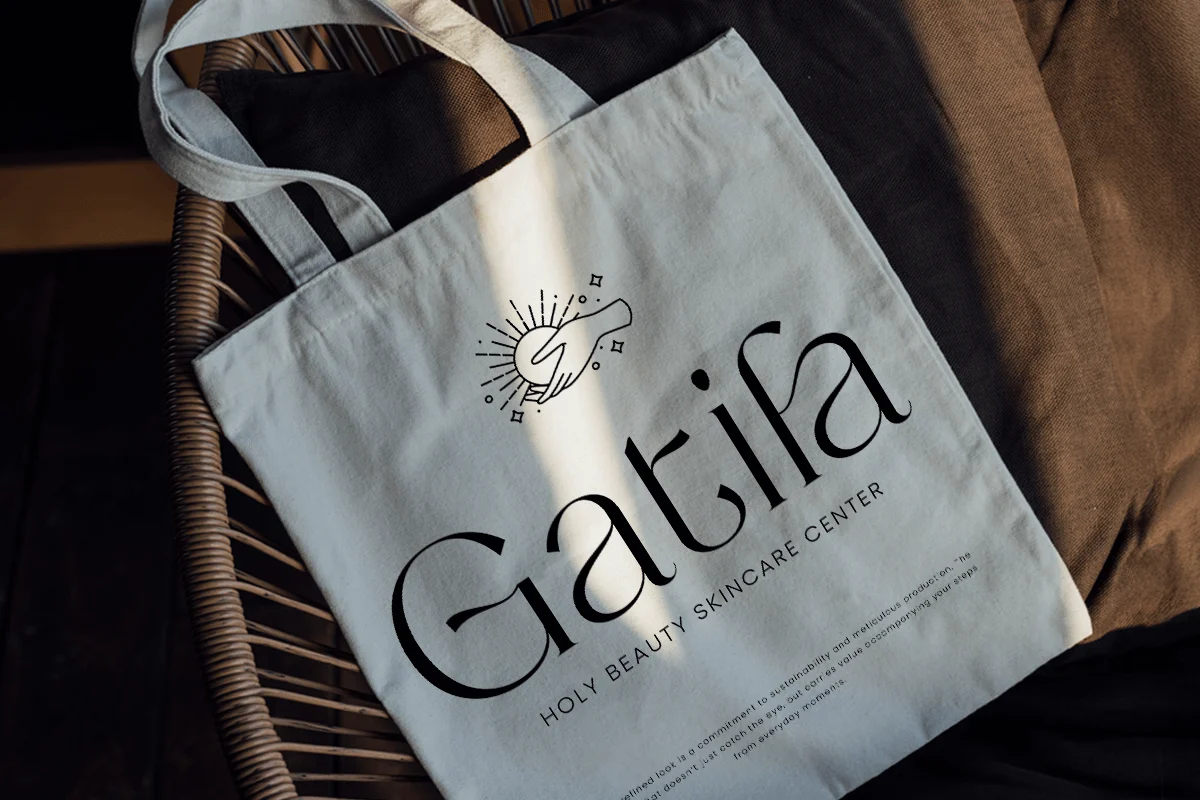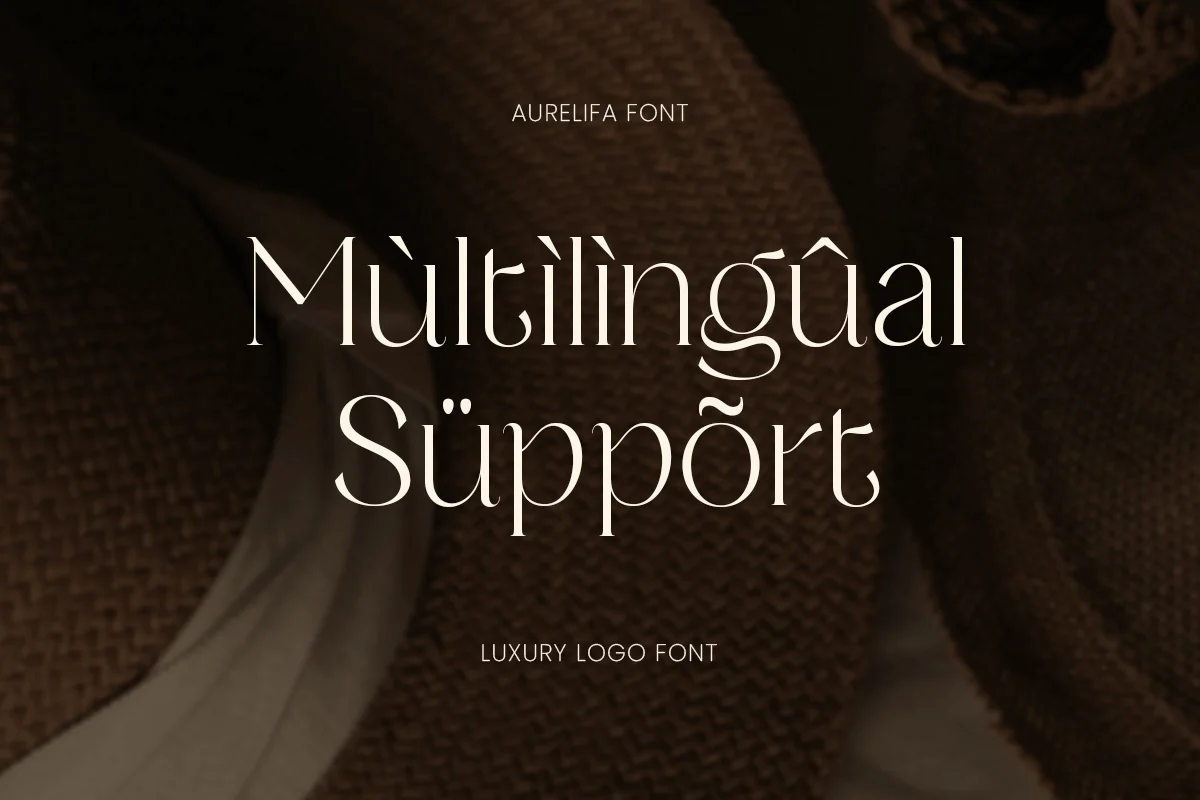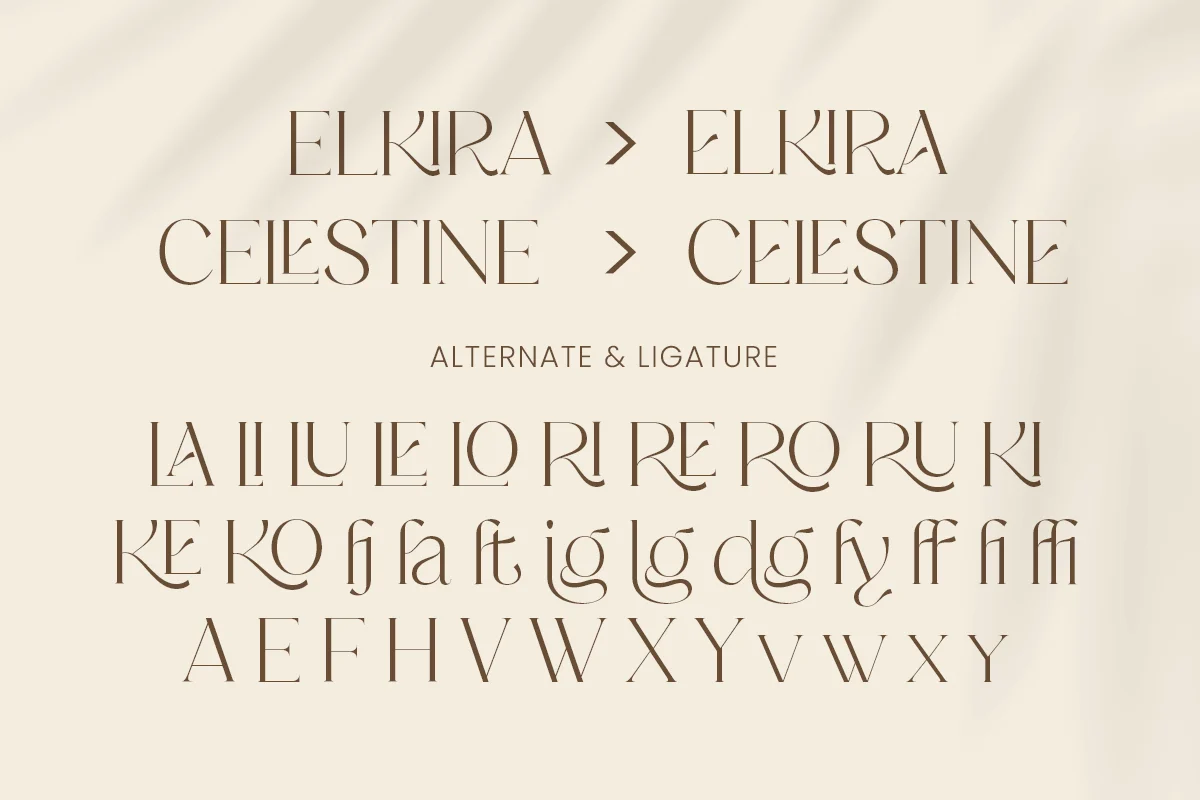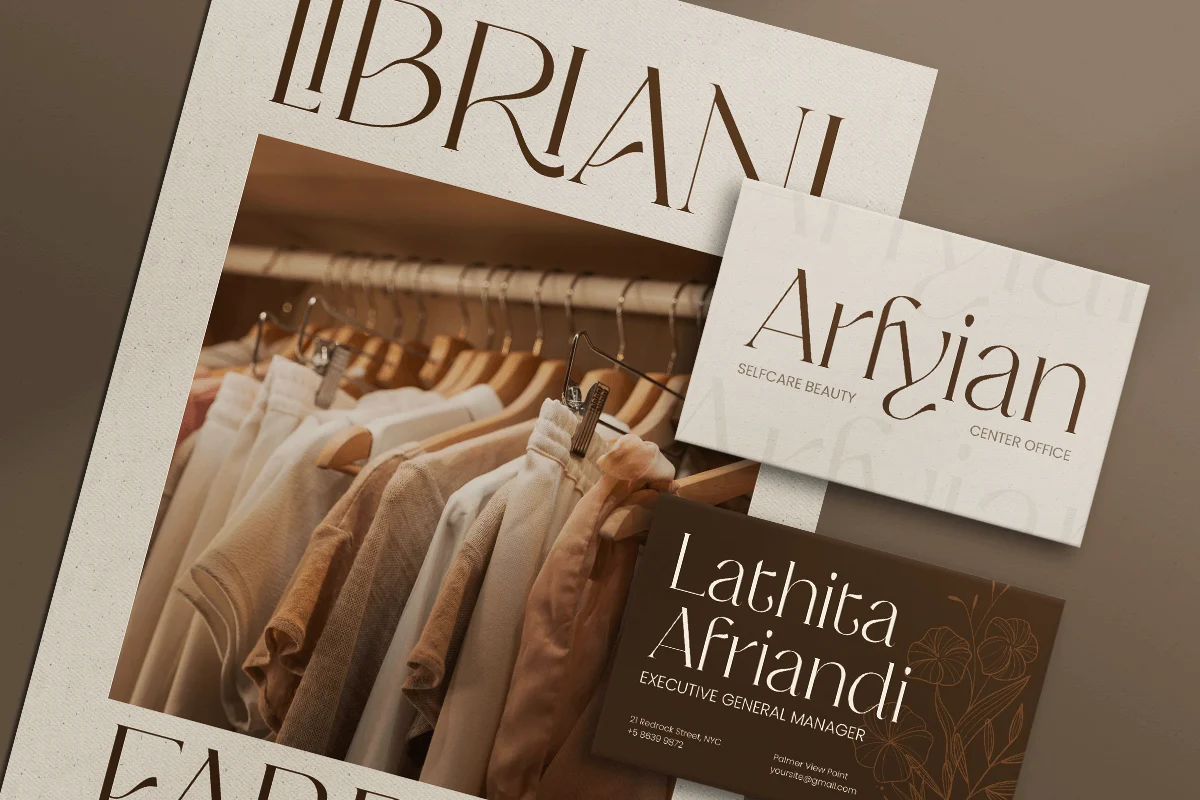
Aurelifa – Luxury Logo Font
Aurelifa is a luxury logo font designed to express elegance, exclusivity, and refined taste. With polished letterforms and a high-end presence, this typeface delivers a premium look that feels modern, confident, and beautifully sophisticated.
Perfect for luxury branding, fashion logos, beauty packaging, jewelry labels, wedding identities, and upscale editorial design, Aurelifa elevates logos, headlines, invitations, product packaging, signage, and social media campaigns with a timeless, boutique-ready aesthetic.
Whether you’re crafting a premium brand identity or adding a classy touch to an elegant layout, Aurelifa brings a signature luxury feel that helps your visuals look more expensive and unforgettable.
Aurelifa – Luxury Logo Font Features
- Elegant luxury letterforms crafted for premium logotypes
- Ideal for fashion, beauty, jewelry, and upscale branding
- Perfect for logos, packaging, invitations, and editorials
- Clean, refined shapes with strong high-end presence
- Includes uppercase, lowercase, numerals, and punctuation
- Designed for sharp results in digital and print projects
- OpenType features for refined typographic styling